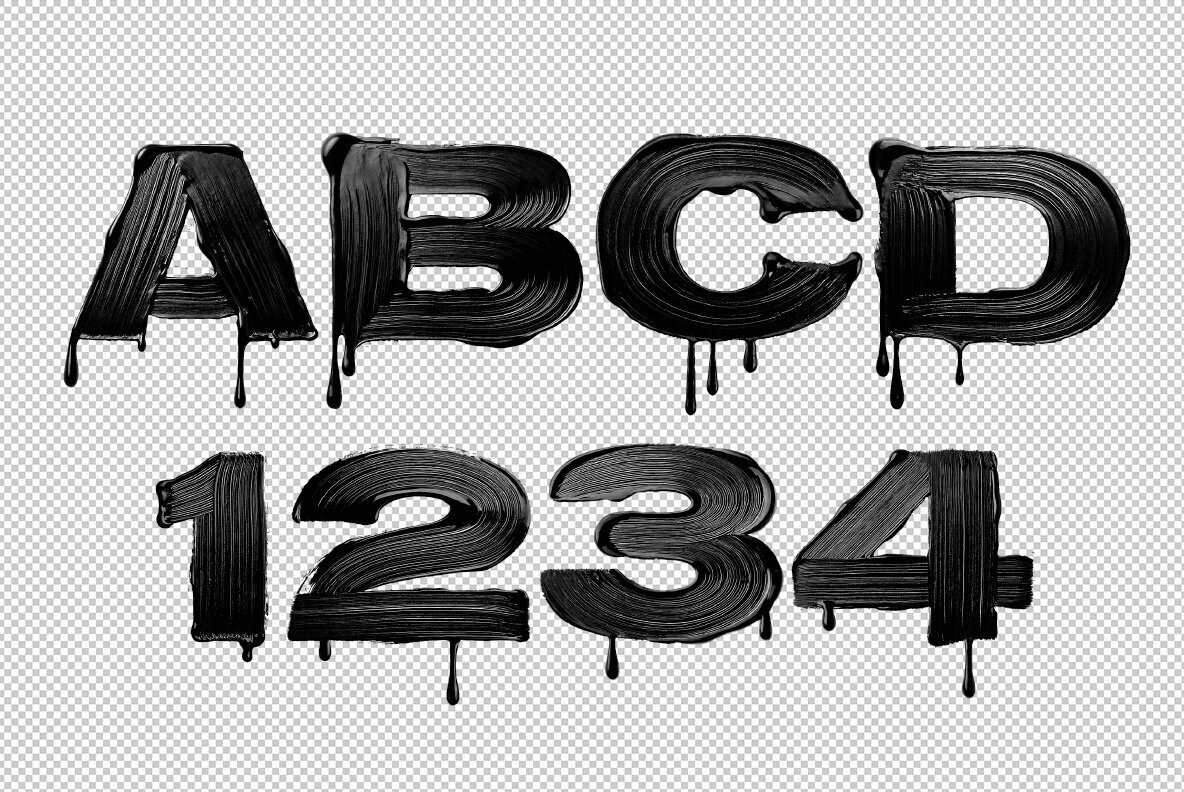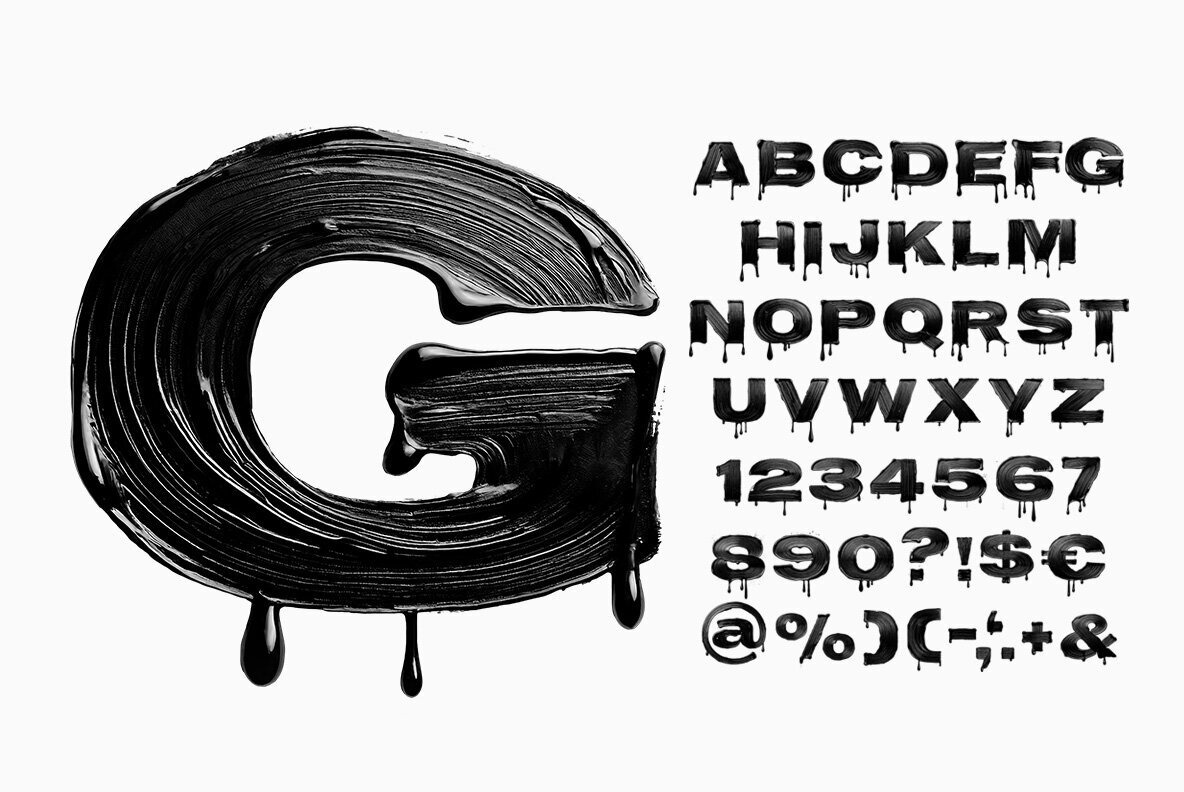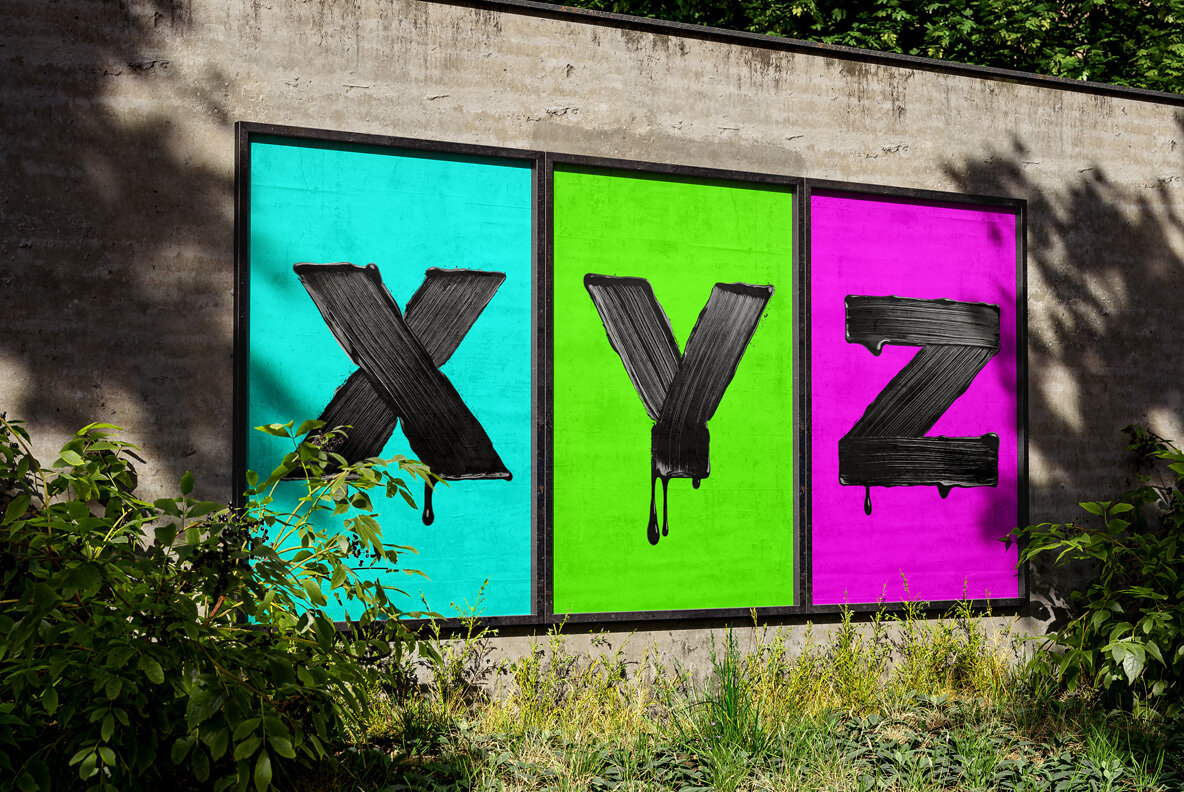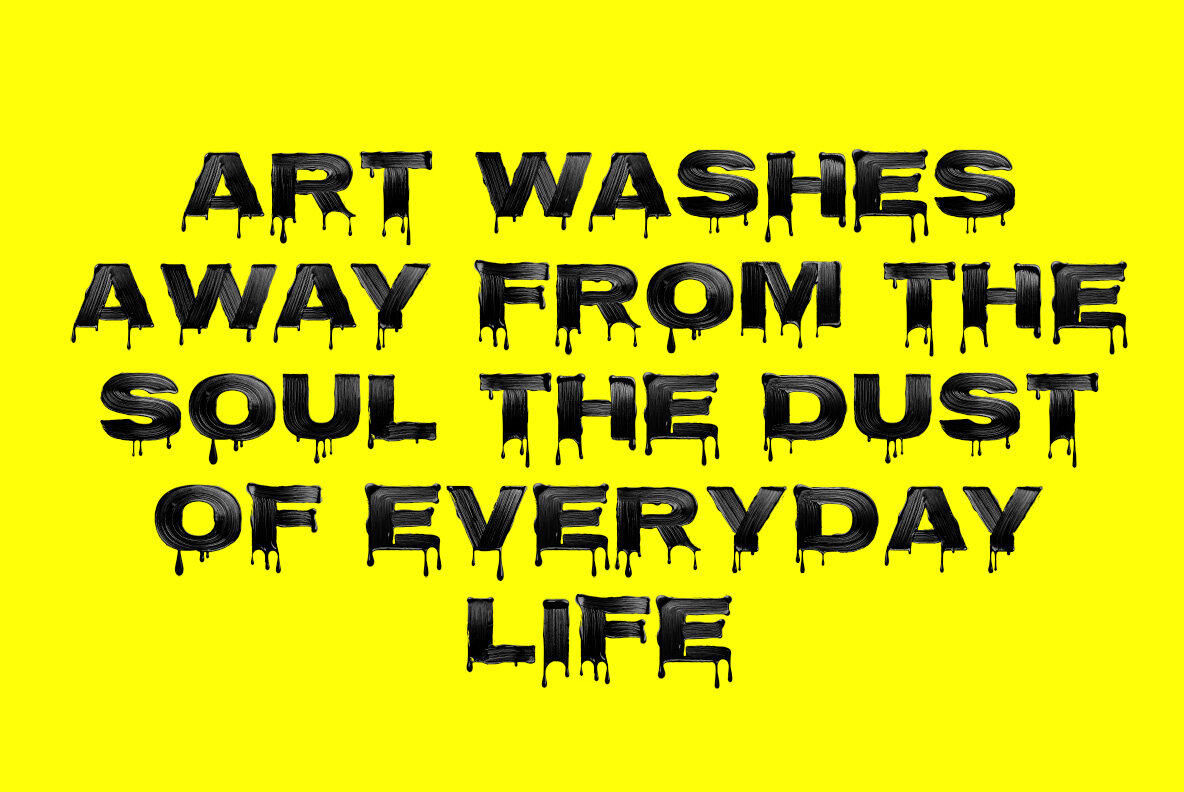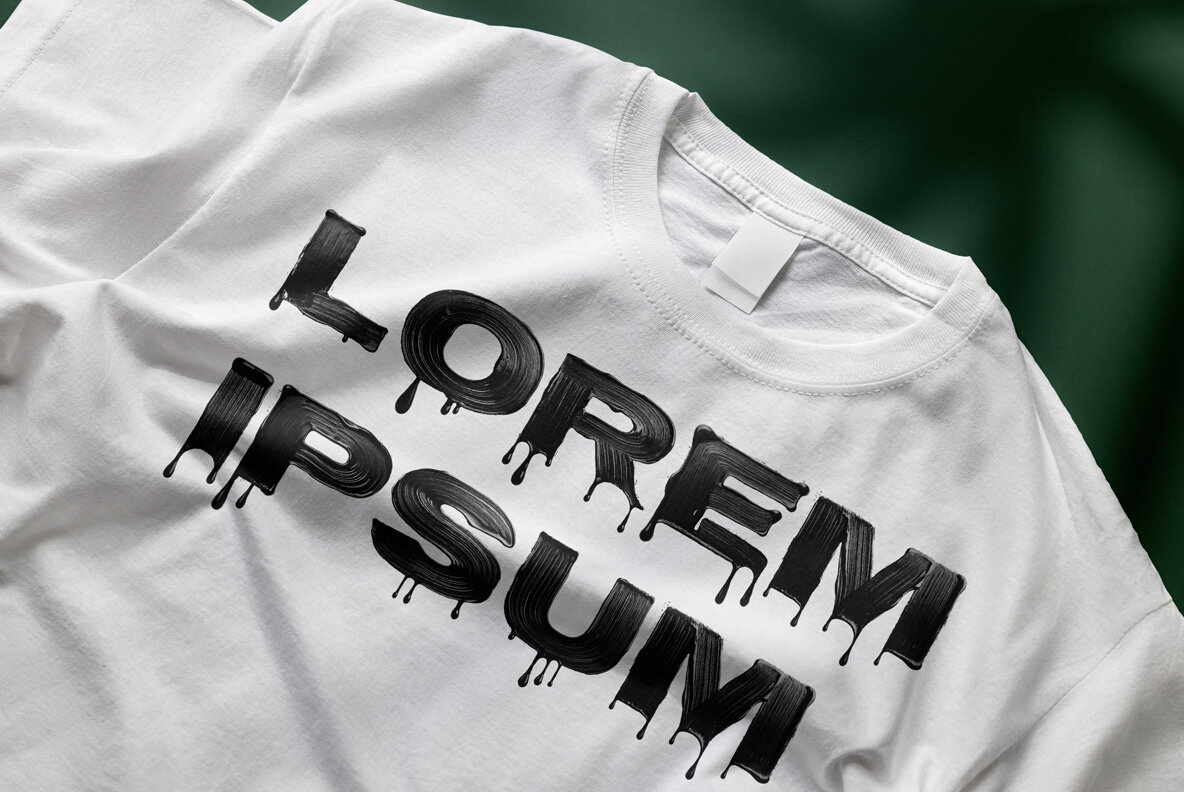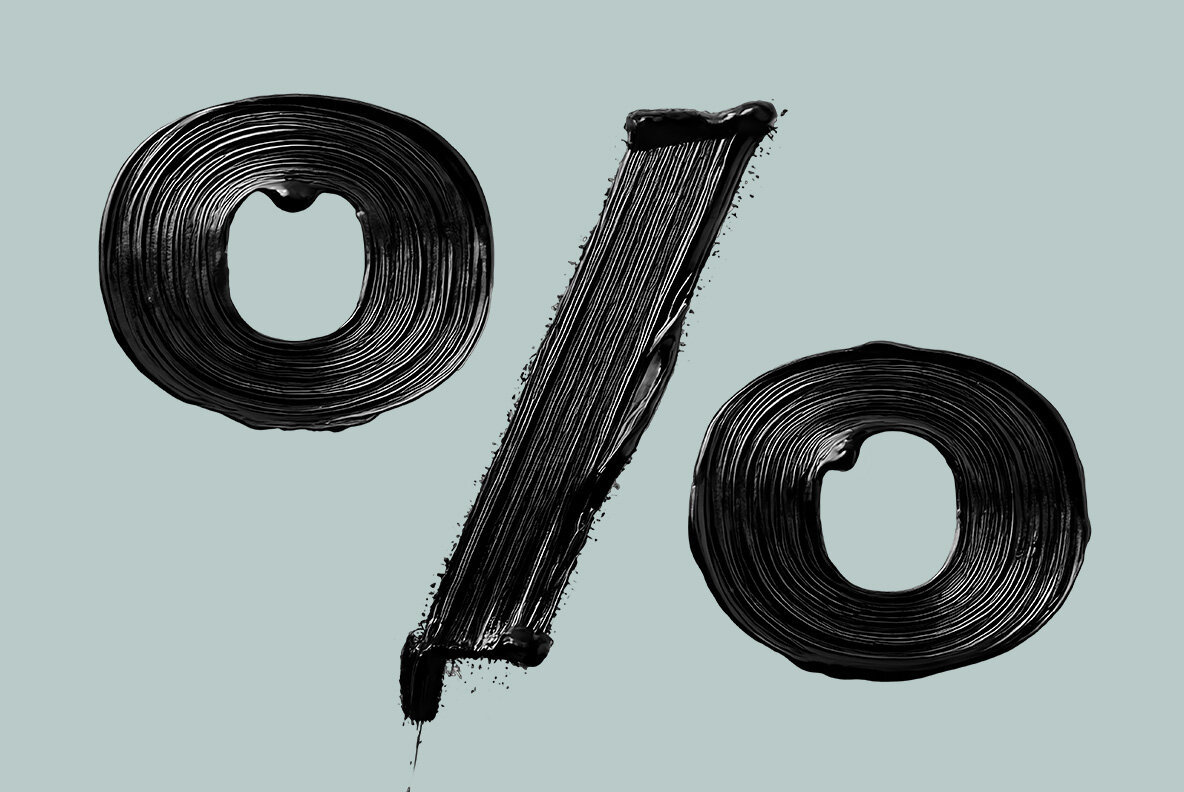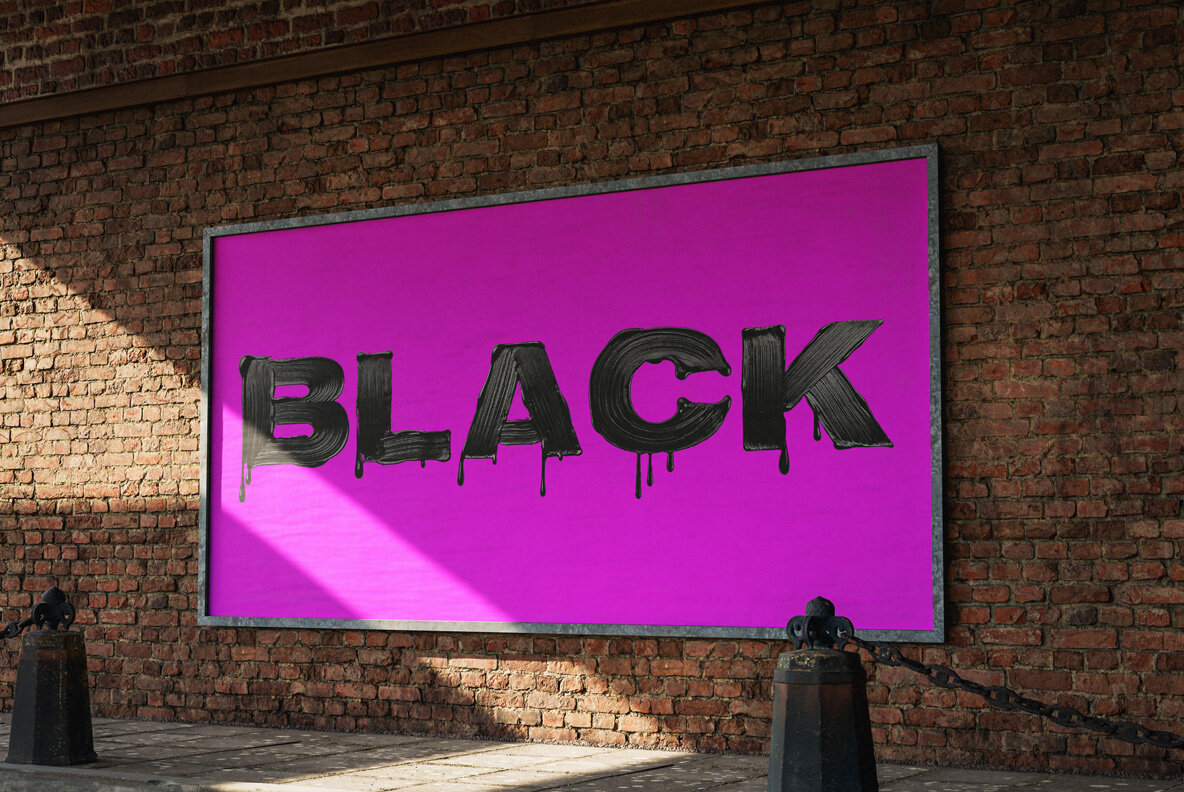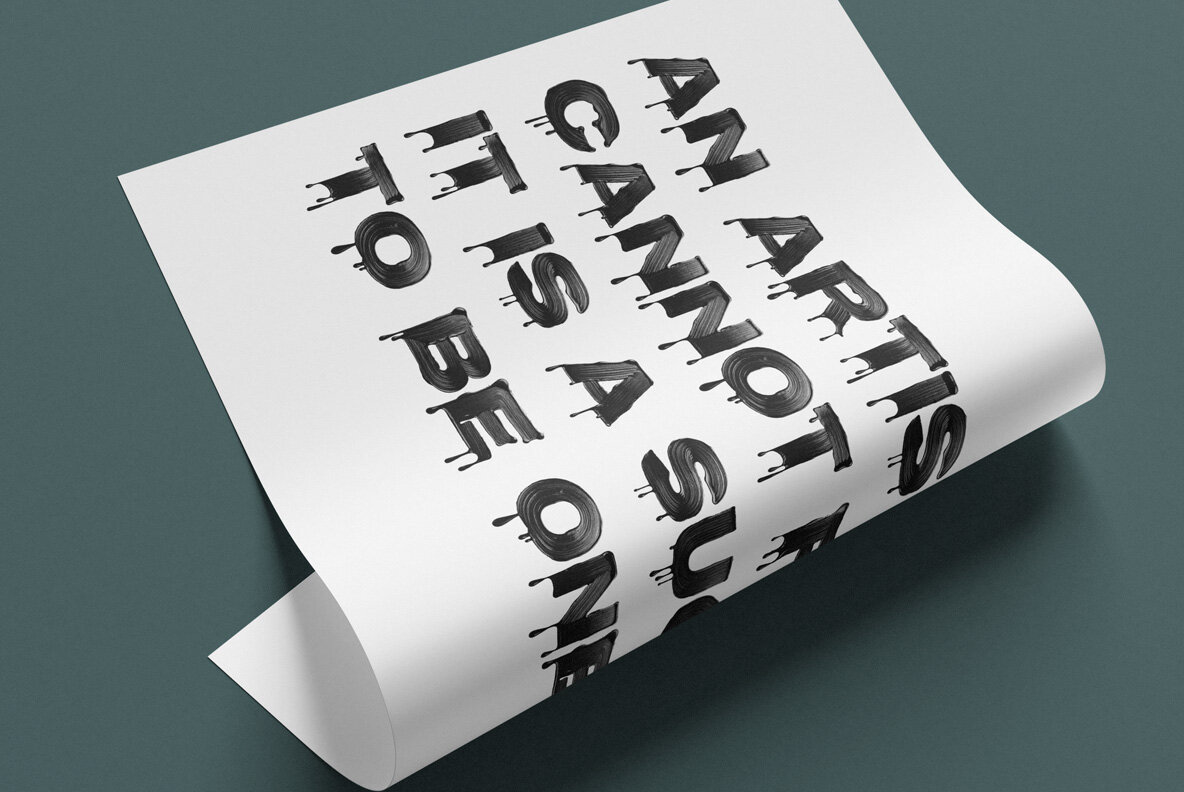
Stroke Edge Font is a bold, dynamic typeface inspired by textured black paint strokes, perfect for modern, edgy designs. With its brush stroke textures, this typeface exudes creativity and raw artistic energy, making it ideal for posters and contemporary branding projects. Stroke Edge Font captures the essence of hand-painted artistry, combining bold aesthetics with artistic precision to bring a unique flair to any project.